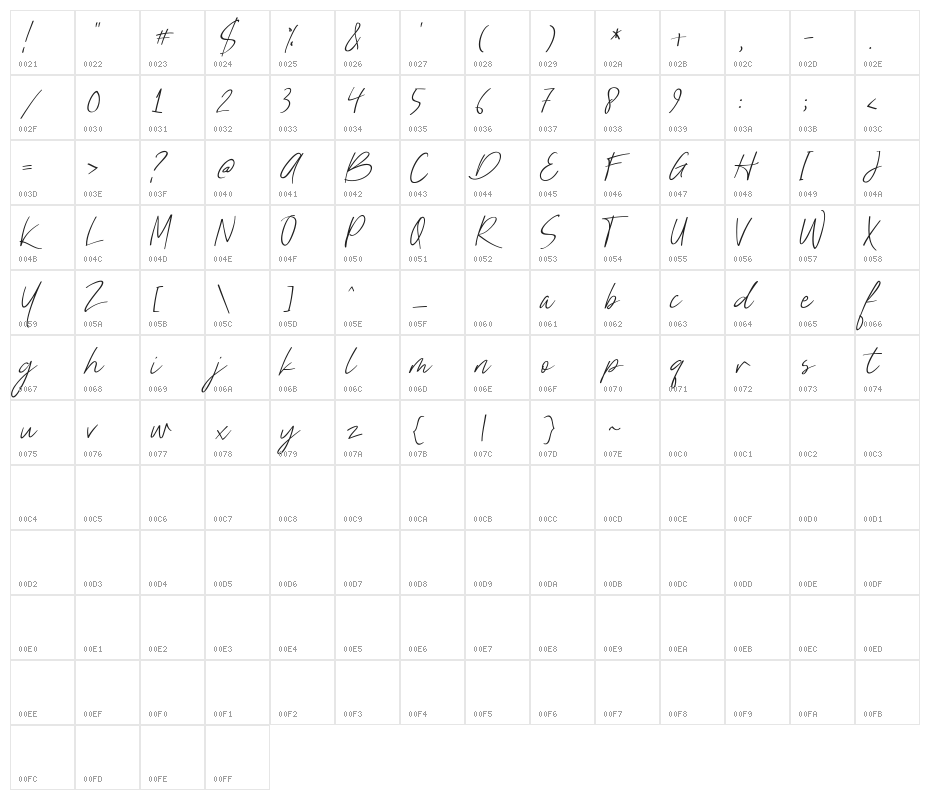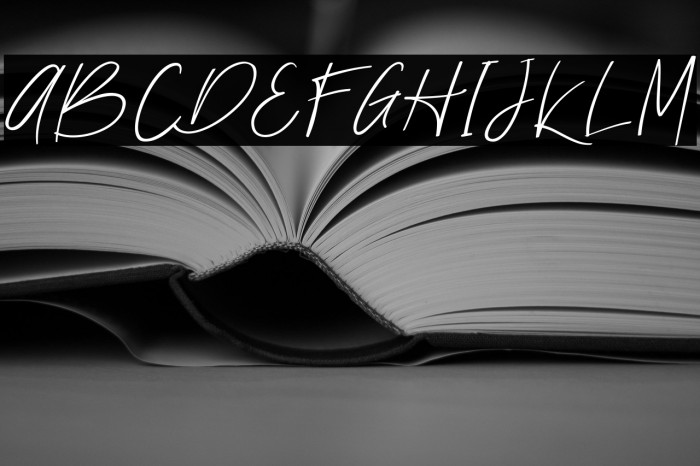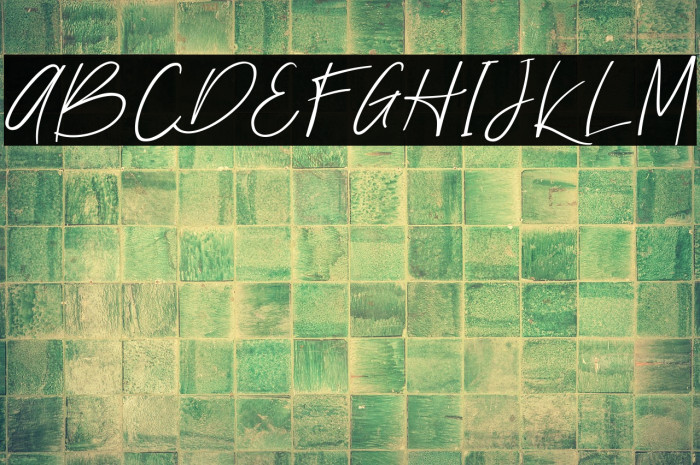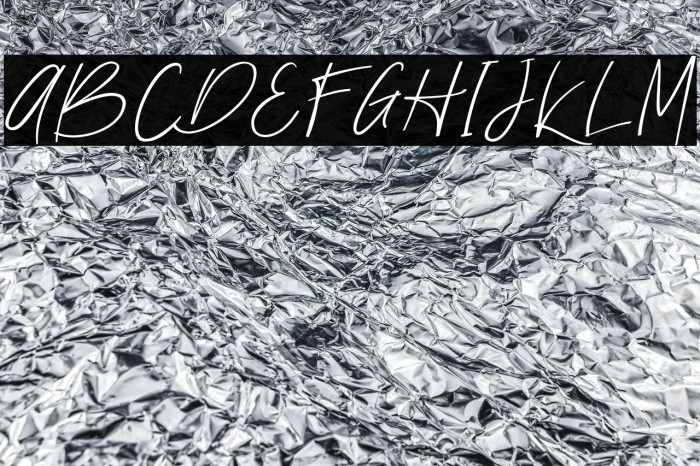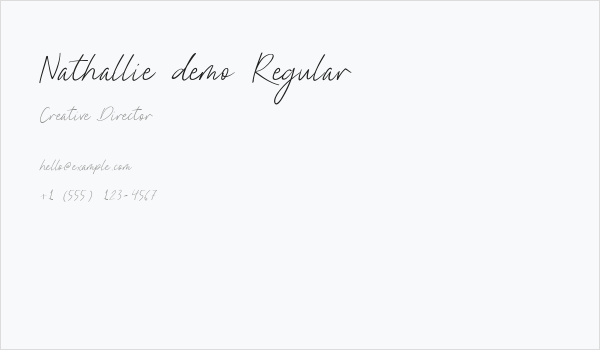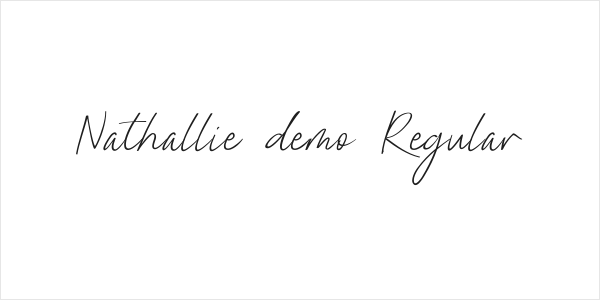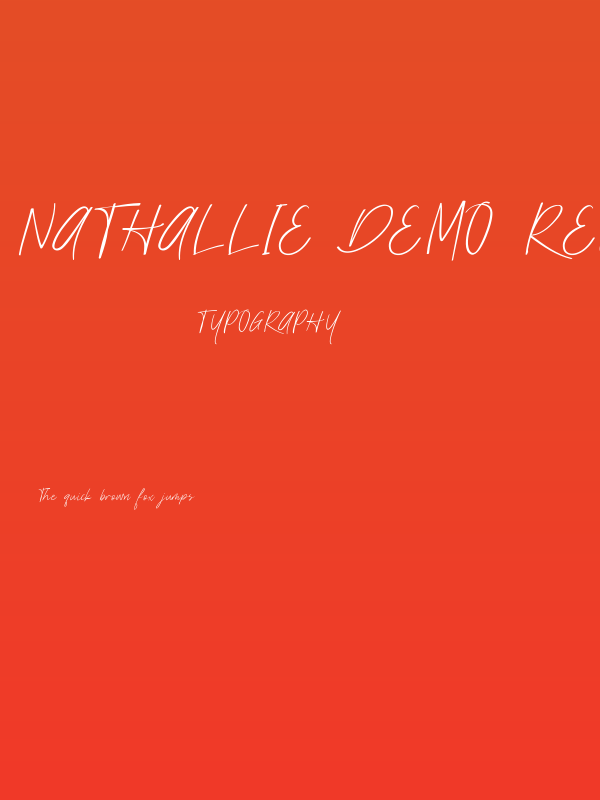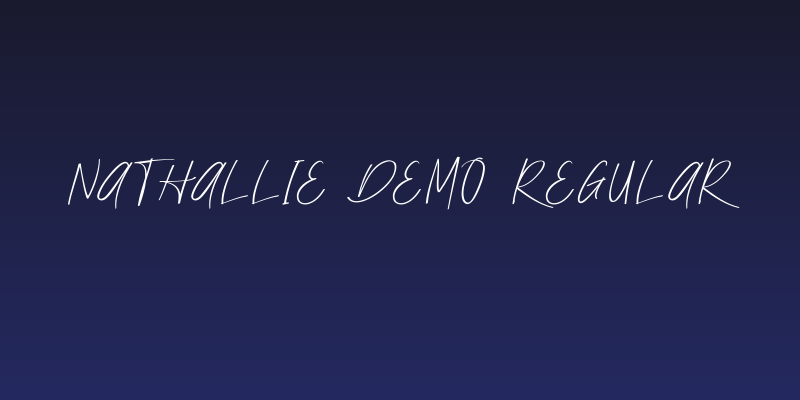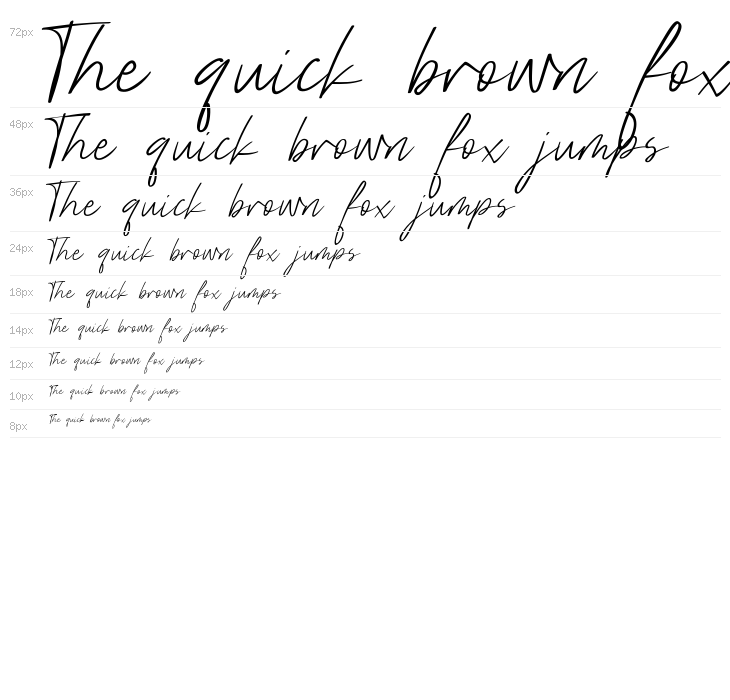
Nathallie demo Regular Font
Nathallie demo Regular Description
This font features a flowing, handwritten style that exudes elegance and sophistication. The characters are crafted with a natural, cursive flair, giving it a personal and artistic touch. The uppercase letters are tall and slightly angular, while the lowercase letters maintain a smooth and fluid connection, enhancing the script-like appearance. The numerals are consistent with the overall style, maintaining a balance between readability and aesthetic appeal. Special characters are seamlessly integrated, maintaining the font's cohesive look. This font is perfect for projects that require a personal, yet refined touch.
| Overall Style | Elegant, Artistic |
| Proposed Projects | Ideal for wedding invitations, greeting cards, personal branding, and artistic projects. |